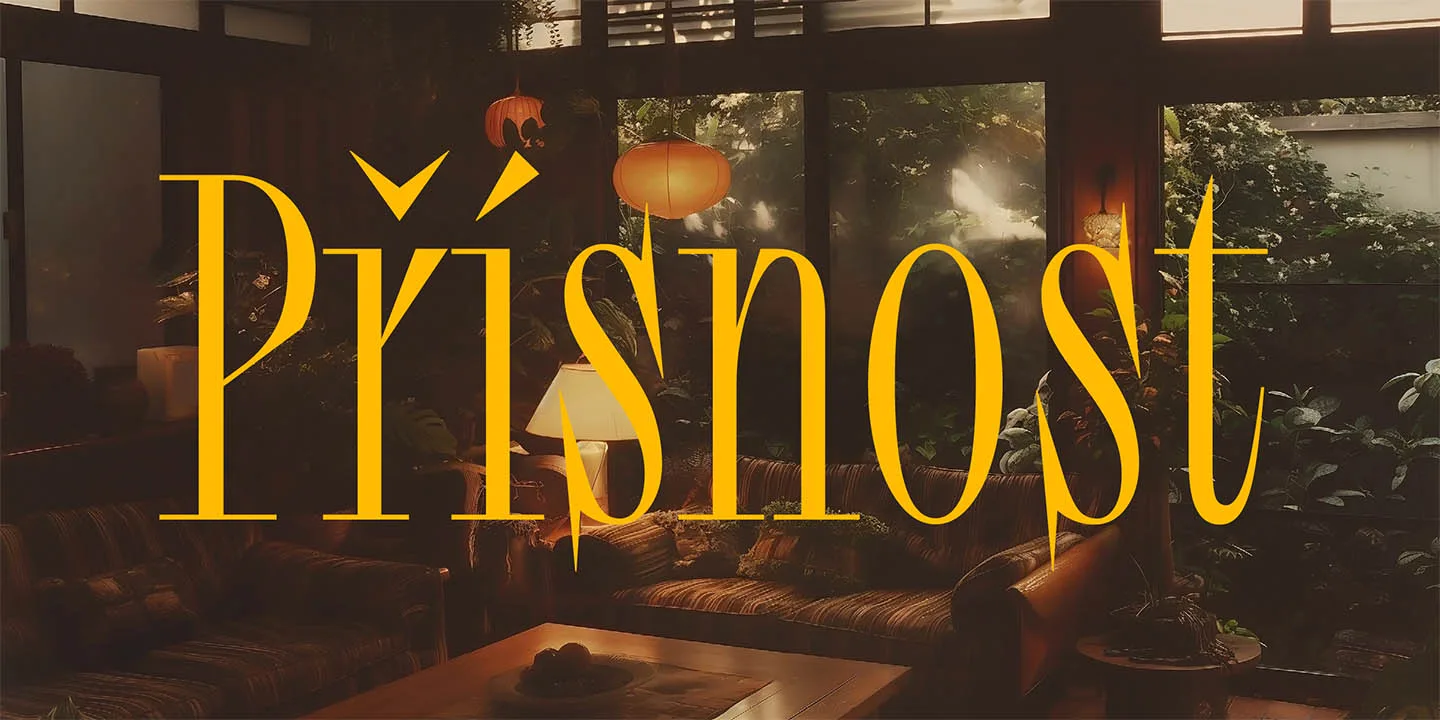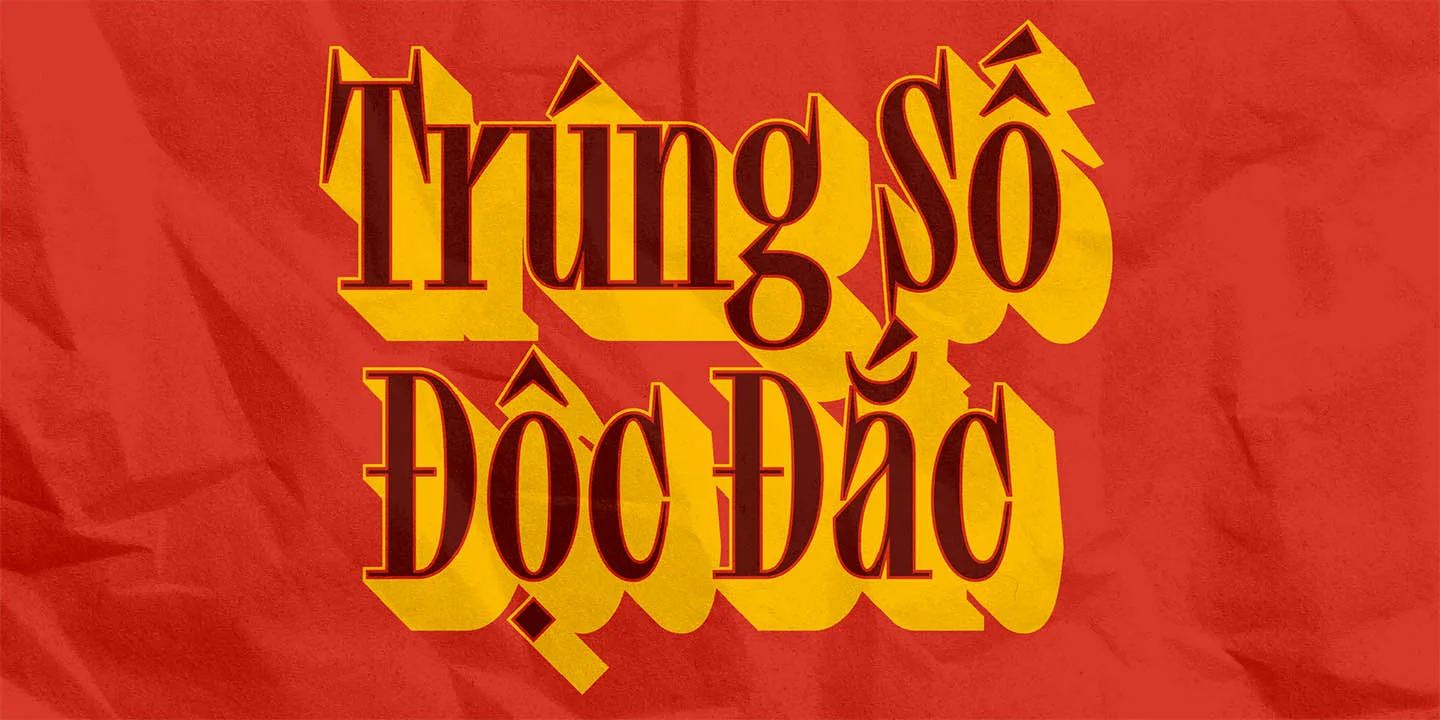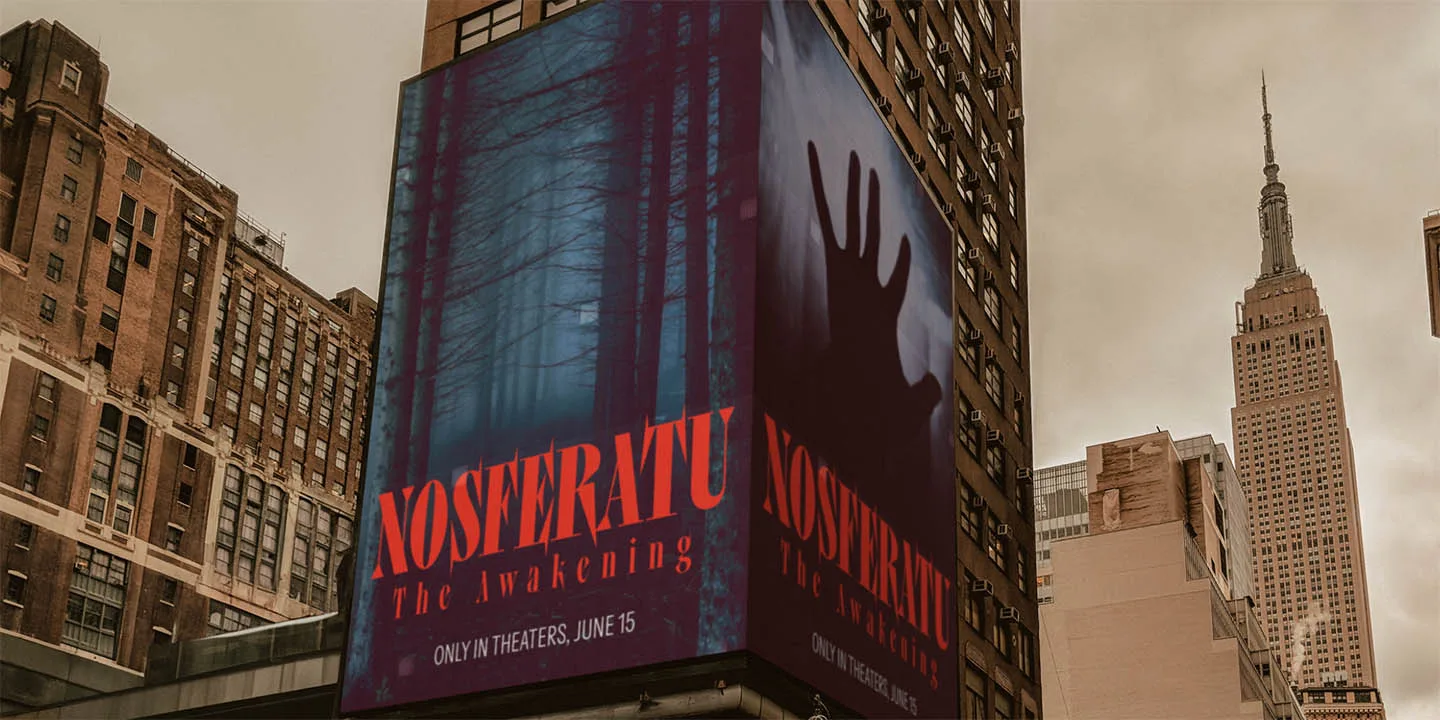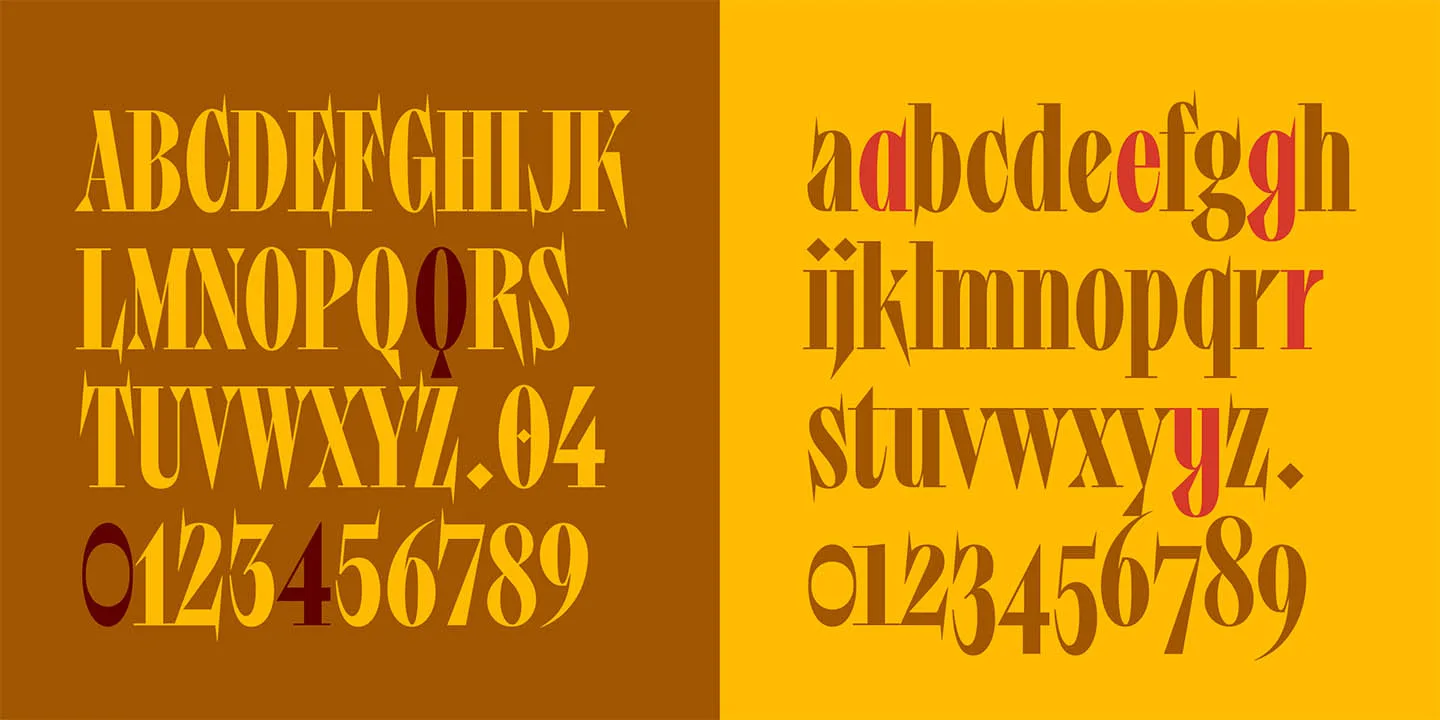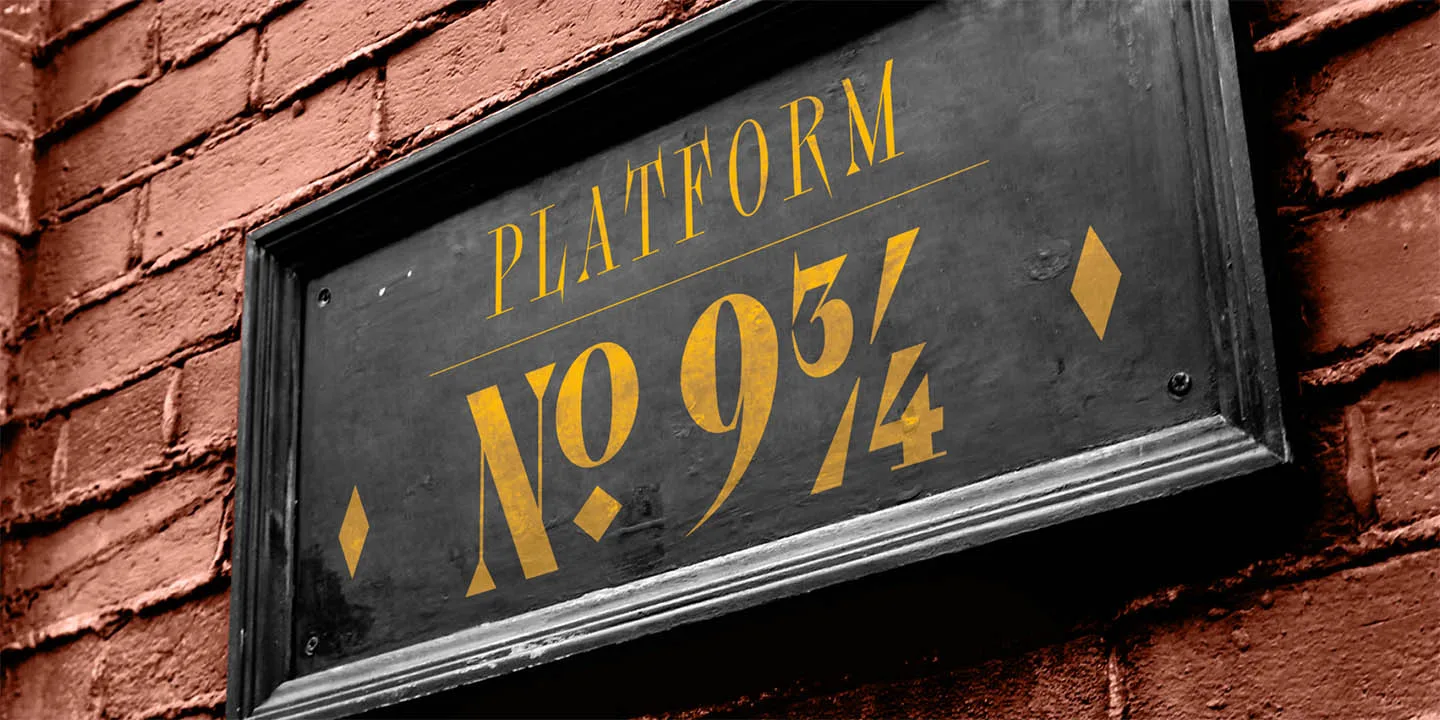
While we wait for time machines to be created, we can trust typography to give us a much needed nostalgia dose. Channeling the brutal arenas of Mortal Kombat, like the legendary “The Pit,” Kintaro embodies the sharp, angular aesthetic of pixelated fighting game memories. The nostalgic font your project needs.
The unique blend of gentle curves and bold strokes allows Kintaro to carve its own path in the crowded realm of didone and slab serif fonts. The interplay between the dramatic serifs and smooth curves fosters a visually captivating presence within the nostalgic font family.
“Pulled from our grainy memories of the hours we sank into Mortal Kombat, Kintaro is our newest release and one that will have you mashing your keyboard just to see each character”. – Rodrigo Fuenzalida, FragType
Besides being a devoted Mortal Kombat enthusiast, Rodrigo Fuenzalida has built a transcontinental career in design and typography. Born in Caracas in 1981, he graduated in Prodiseño design school in 2007 but this was only the beginning. His endless curiosity kept him constantly amplifying his typographic knowledge, taking him to places like the Museum of Contemporary Arts design department in Venezuela and more recently working alongside Pablo Impallari in Google Fonts, Aldo de Losa, and Rubén Fontana.
Between Venezuela, Argentina, Chile and Portugal, Fuenzalida keeps standing out in the type design world, currently working independently for various clients like Google Fonts and Monotype, besides constantly collaborating with studios like InHouse and F37. His work has been highlighted by the Bienal de Tipos Latinos (2012, 2016, 2018), the Museum of Stamp and Design Carlos Cruz Diez and diverse publications from Slanted.
Kintaro packs a punch with its 6 weight options, offering an agile Light for finesse to a commanding Black for maximum impact. Unleash your creativity with Kintaro’s arsenal of alternate characters, crafting text combinations that land a knockout blow in any design battle.